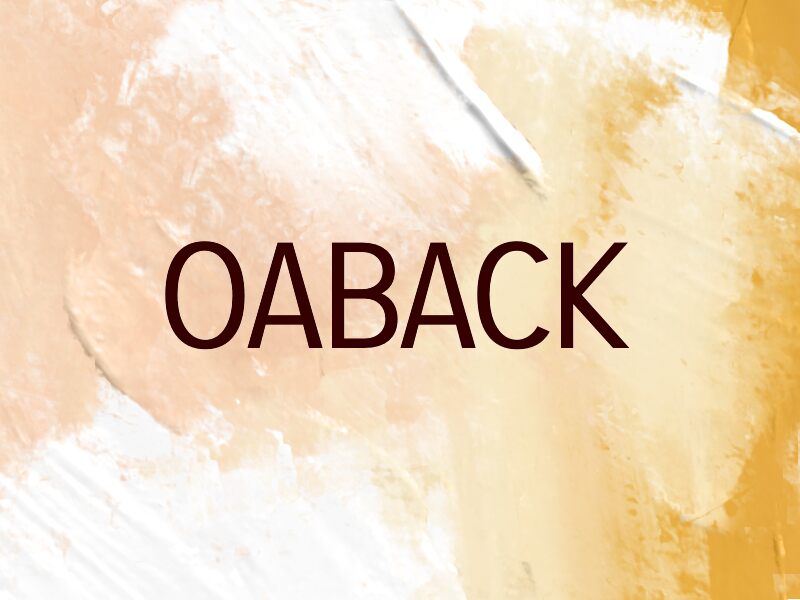
Oaback font is a free sans serif font with a neutral, minimalist, and modern design by Wepfont.com. This font has a clean, professional style which is versatile and easy to use on its own, or with other font types. With many potential applications, this font is sure to add value and stylishness to your design. The font language is in Japanese.
Use Oback font in a branding and identity project for a company, retail store, or restaurant. In communication design, this font suits promotional or informative flyers and brochures, newsletters, magazine layout, and both personal and professional business cards.
Oaback is a versatile and modern free font that is perfect for a variety of design projects. This font features clean lines and a contemporary aesthetic, making it an excellent choice for both digital and print applications. Whether you’re creating a website, a poster, or branding materials, Oaback will enhance your designs with its stylish appearance.
One of the advantages of using Oaback is its legibility, which ensures your text stands out clearly in any context. The font's unique characteristics add personality to your work while maintaining professionalism.